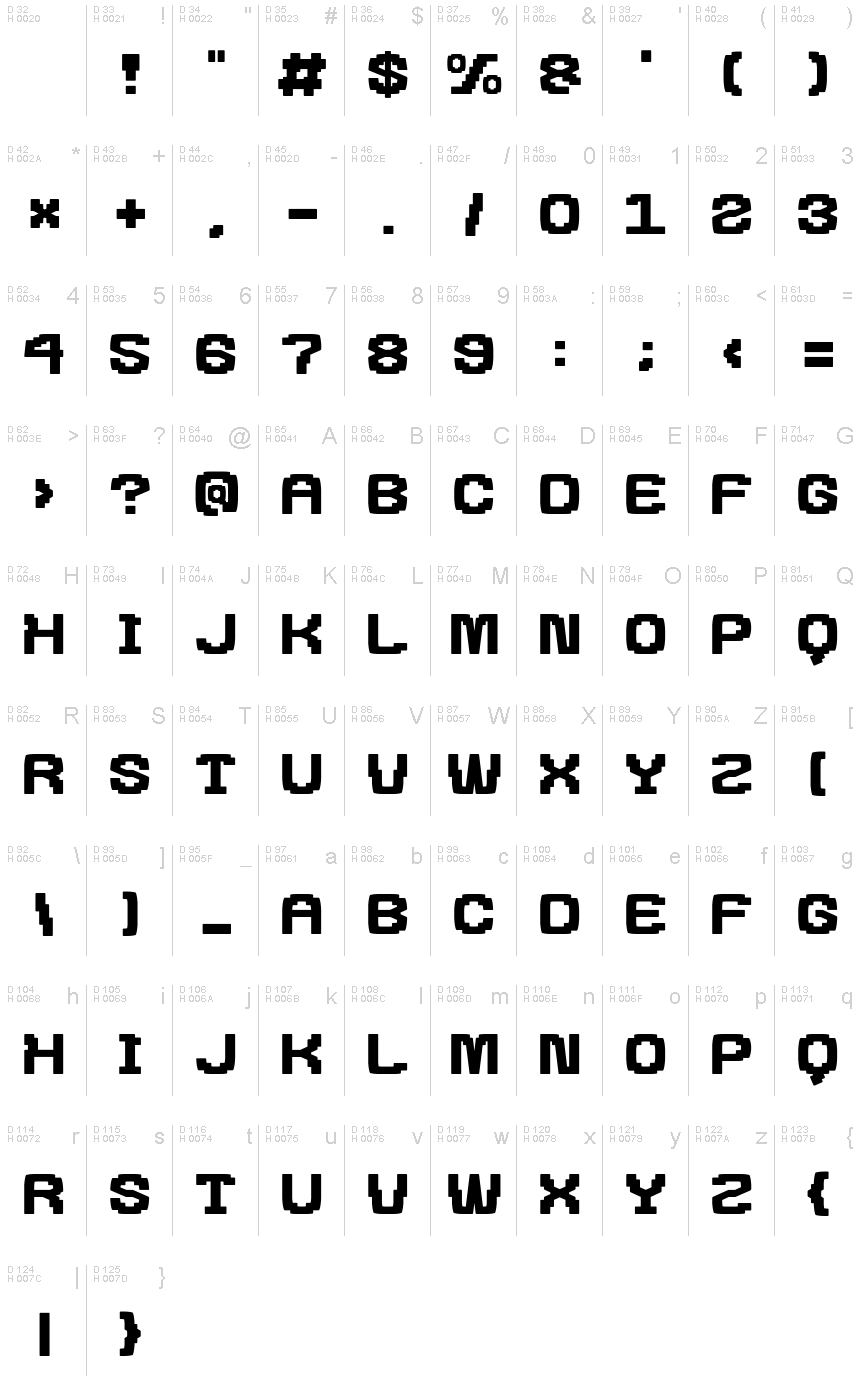
Mix Bit Font
Mix Bit Font, crafted by Goma Shin, embodies a captivating digital aesthetic. With its bold, expanded letterforms, this font exudes an avant-garde and futuristic essence, instantly capturing the viewer's attention. The strikingly angular shapes and sharp edges create a strong, dynamic impression, lending the design a sense of technological innovation and cutting-edge modernity.
This versatile font lends itself well to a variety of contemporary design applications, from eye-catching headlines and impactful branding to dynamic user interfaces and visually striking digital experiences. Its expansive width and distinctive character make it an excellent choice for projects seeking to convey a sense of energy, technological prowess, or a bold, forward-thinking aesthetic.